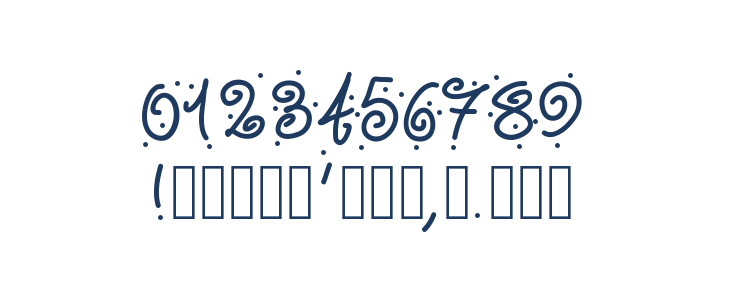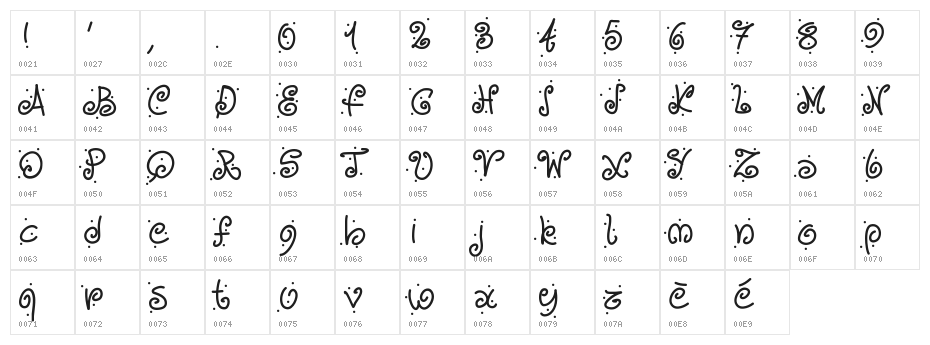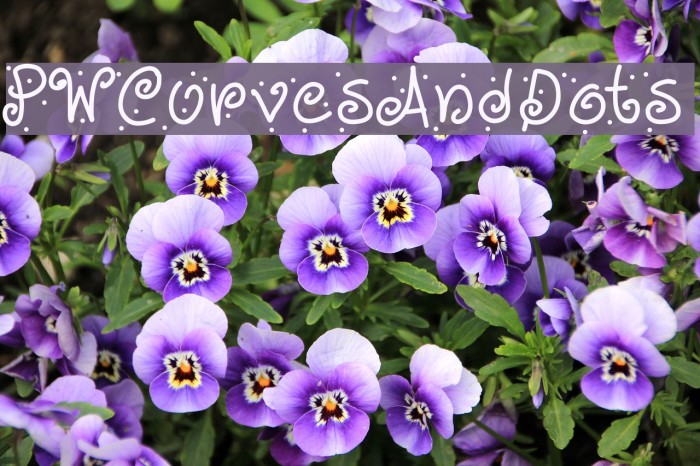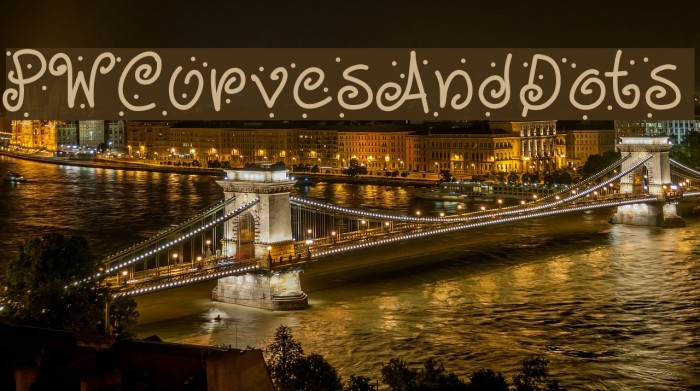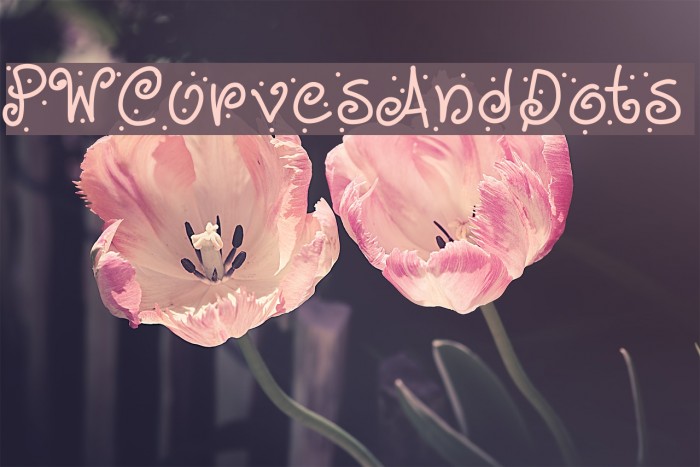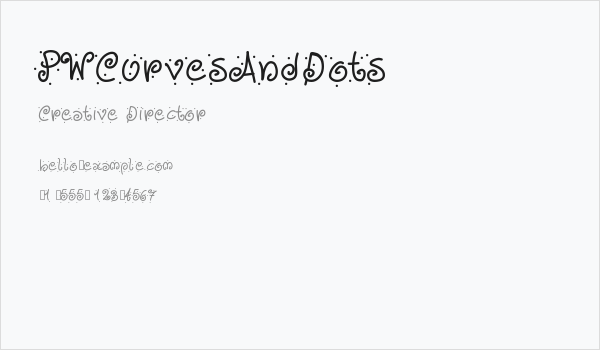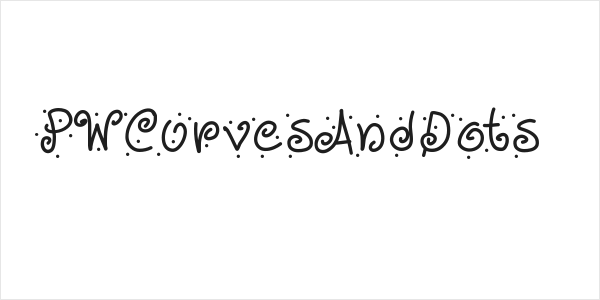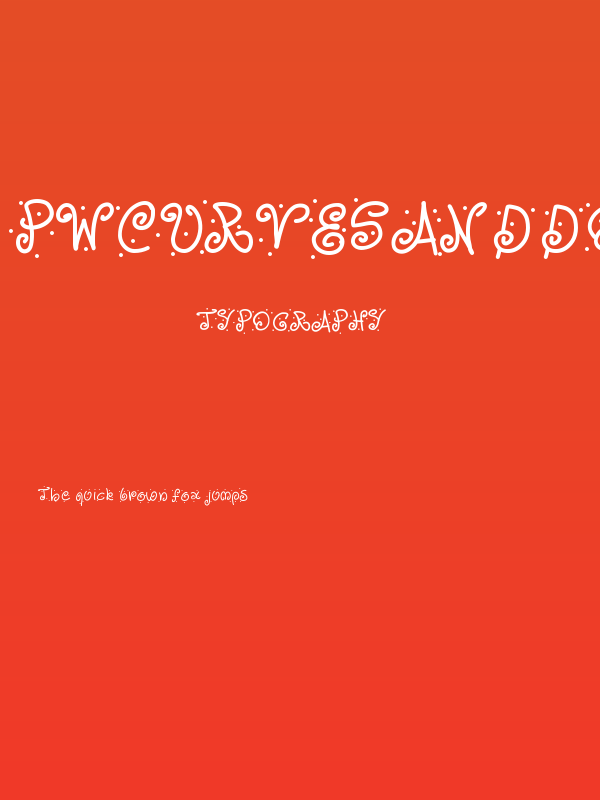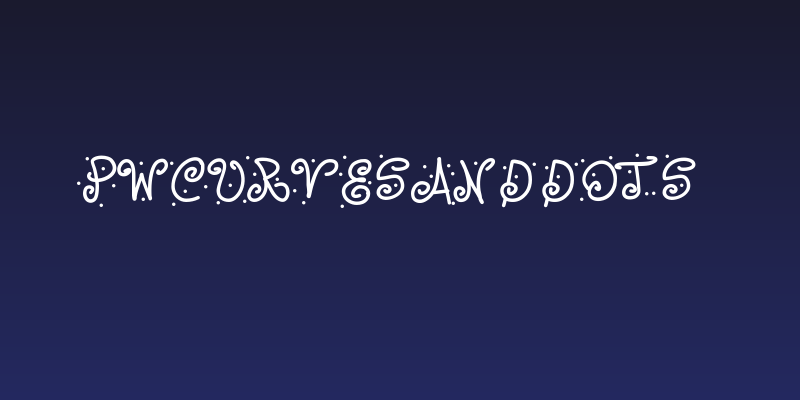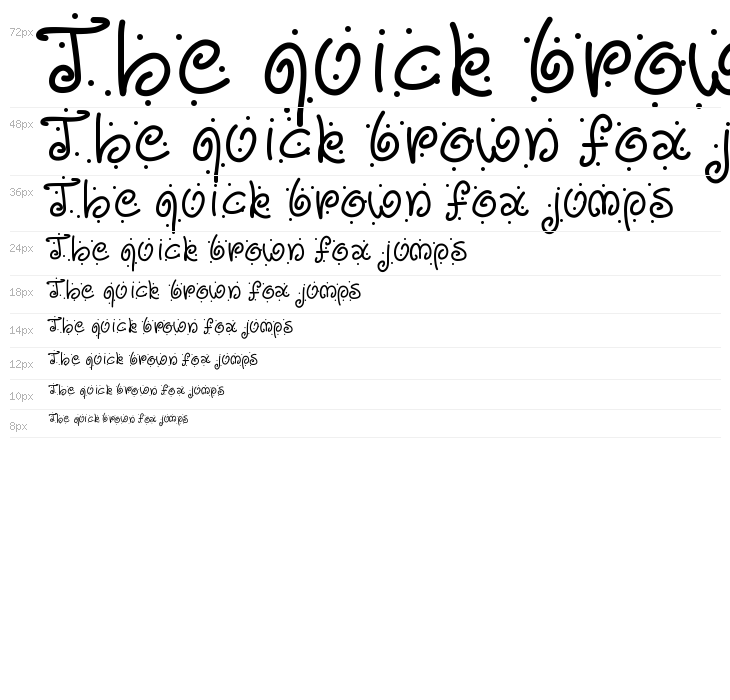
PWCurvesAndDots Font
PWCurvesAndDots Description
This playful and whimsical font features a unique combination of curves and dots, creating an eye-catching and decorative style. The uppercase and lowercase letters are adorned with small dots at various points, adding a sense of fun and creativity. The characters are rounded and have a consistent stroke width, giving them a smooth and flowing appearance. The numbers and special characters follow the same design principles, ensuring a cohesive look across all elements. This font is ideal for projects that require a touch of personality and flair.
| Overall Style | Playful and Whimsical |